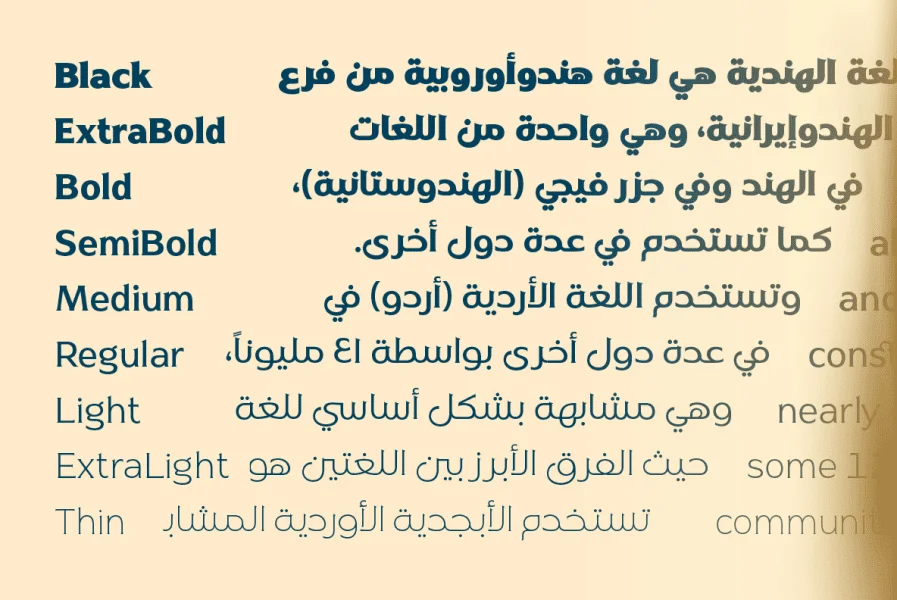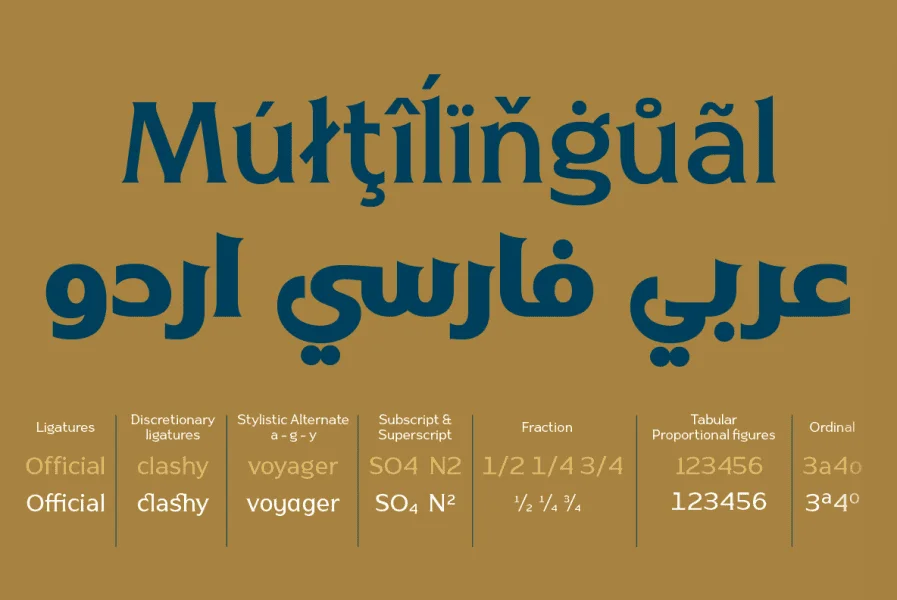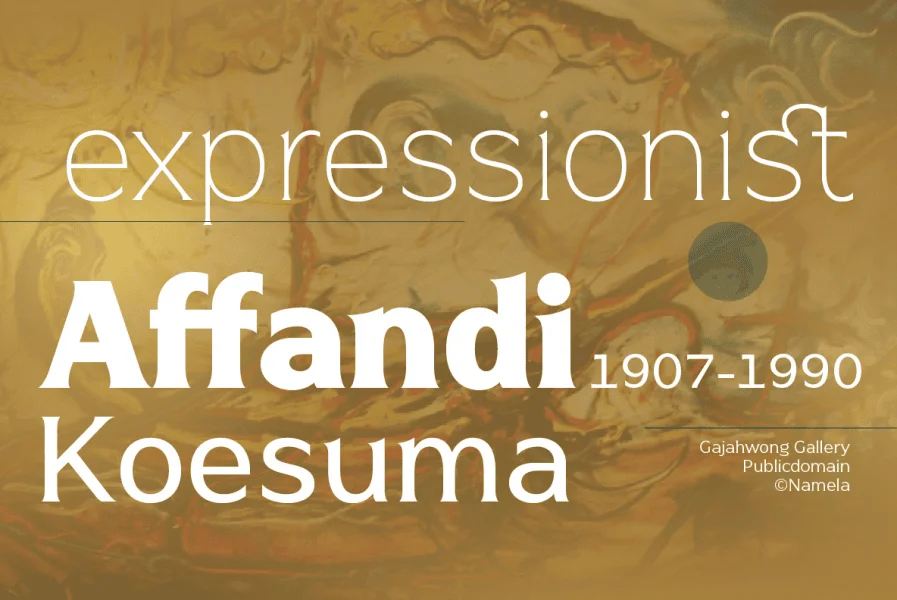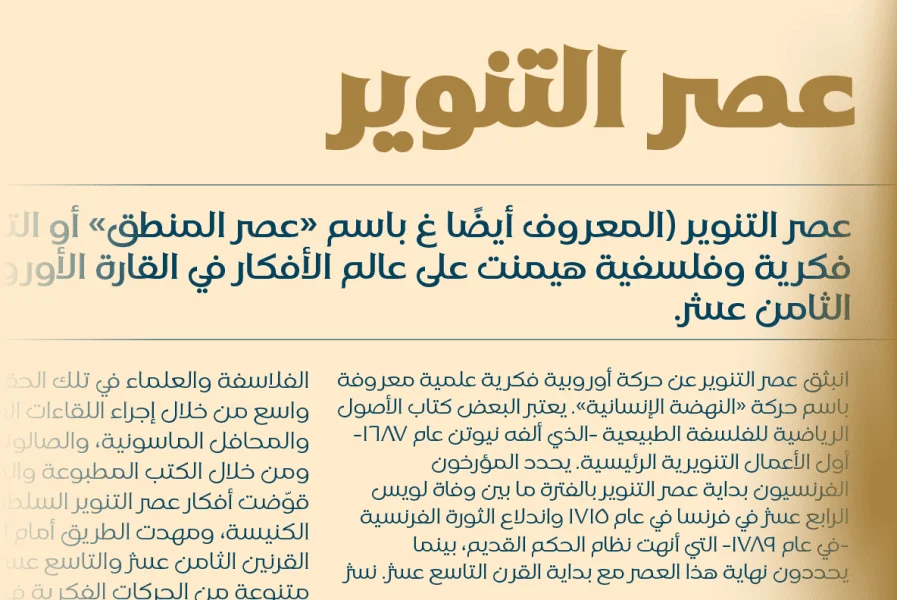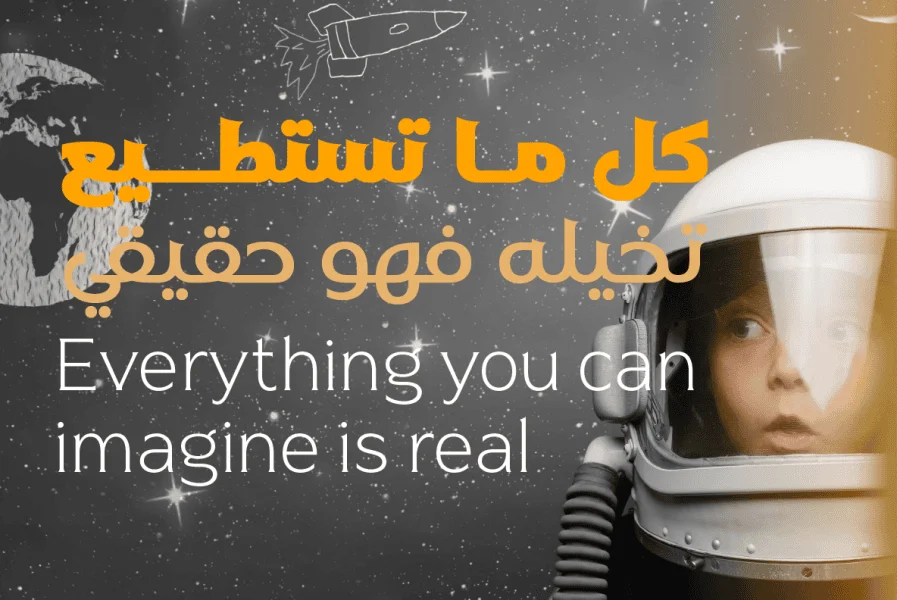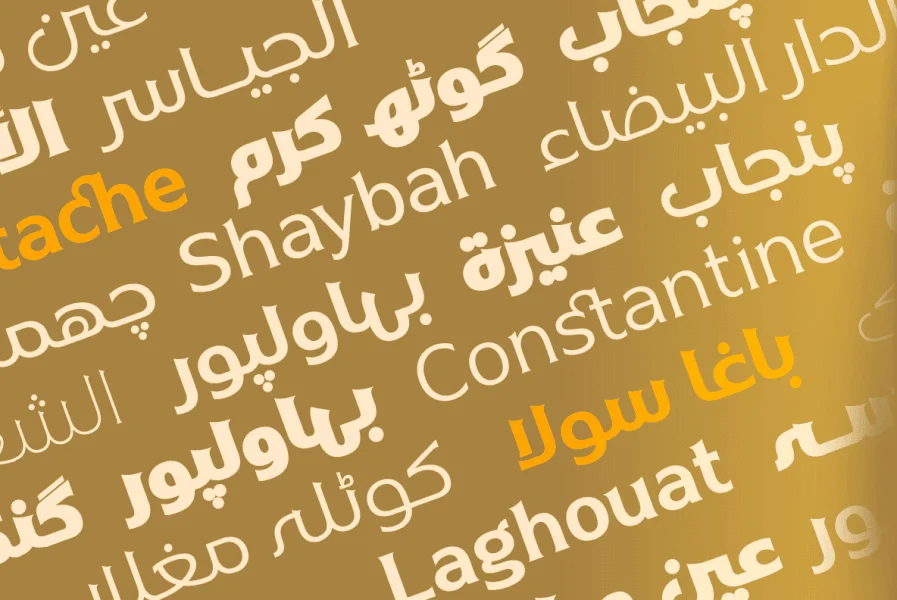
Naveid Arabic is a Elegant Arabic font. Designed with combining the cuppped serif on top and the tinny Subtle Flaring on the terminal. With the addition of Arabic glyphs, for Arabic, Urdu, and Farsi. Basic form for arabic font is refers to the arabic kufic style.
Naveid Elegant Arabic font designed with low contrast, consists of 18 styles from thin to black, it makes this font not only great for Headlines, but also great for paragraph, text and printing.